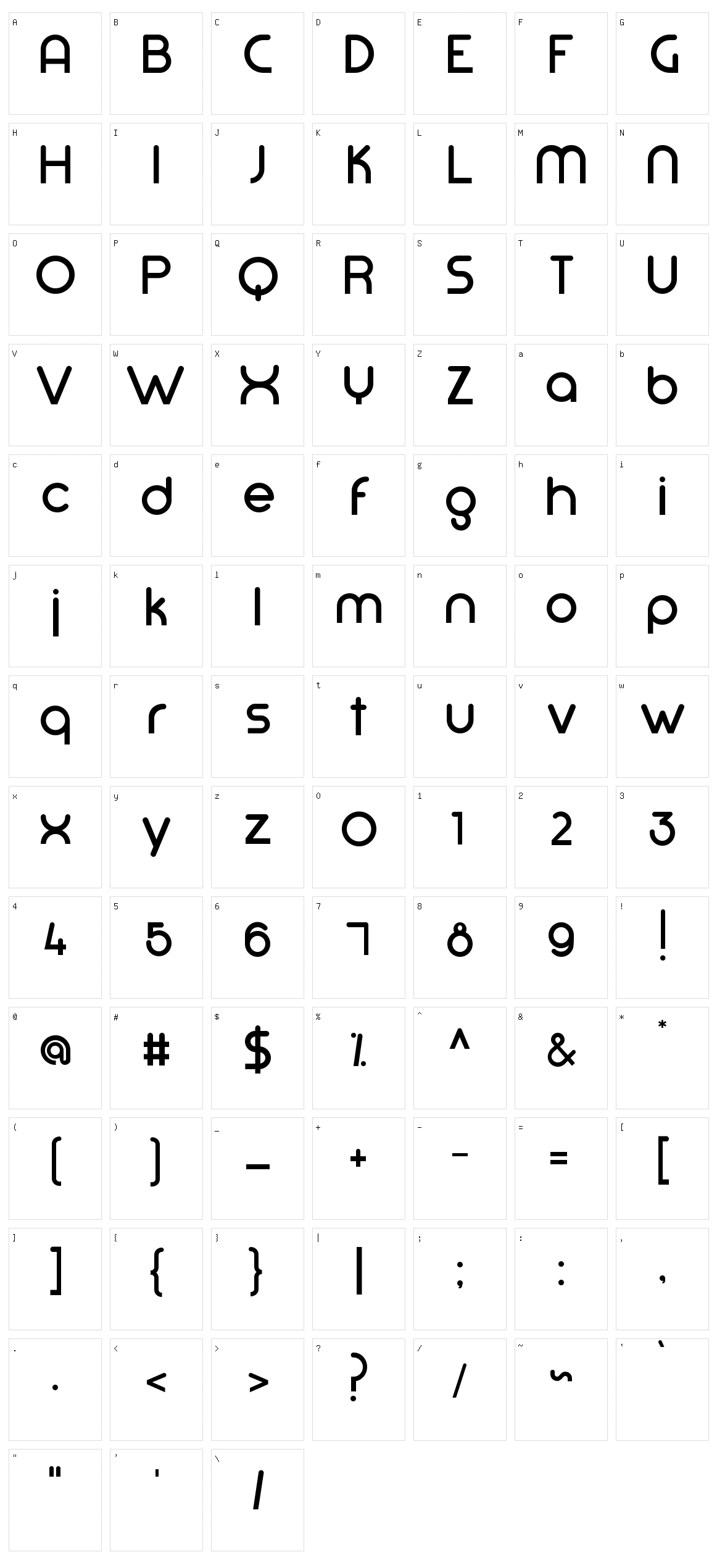
The free font Mode G is carefully designed by GUD - Ohmyfont, showcasing a thoughtful balance of creativity and usability and falls under the Sans serif font style. When you download the ZIP file, it contains only 21.98 KB of font files, making it lightweight and quick to download. Please review the license details below to understand permitted usage and distribution rights. If license information is not available, we recommend using this font for personal projects only or contacting the author directly for commercial usage permissions.